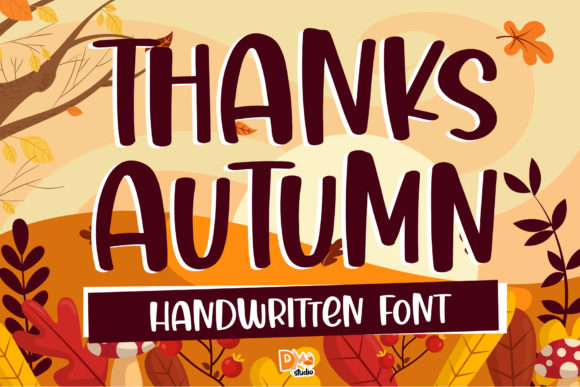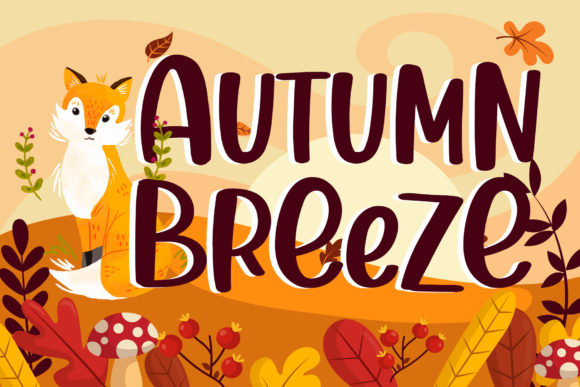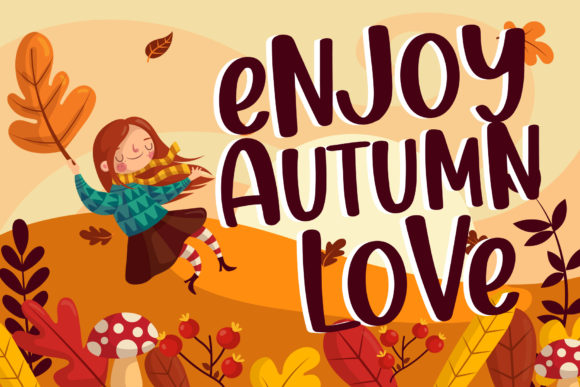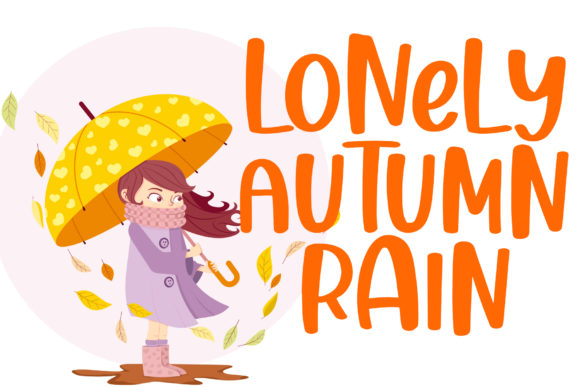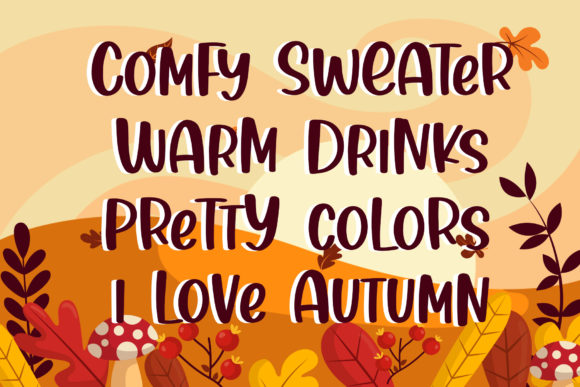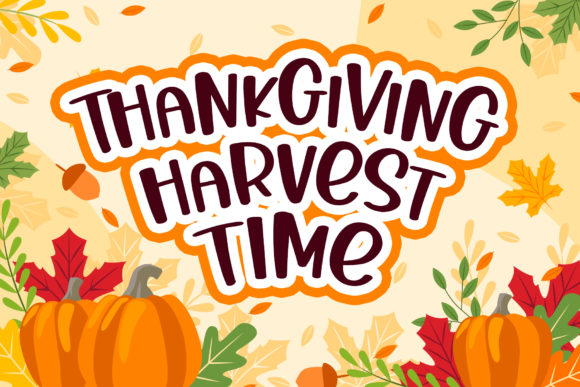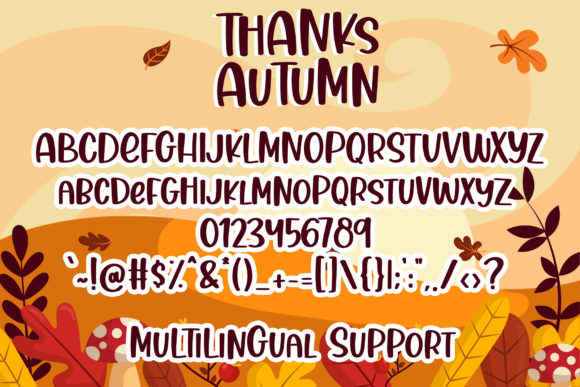
Thanks Autumn Font
About Thanks Autumn Font
Thanks Autumn embodies fun, quirkiness and authenticity. This enchanting handwritten font will turn any creative idea into a true standout. Get creative with its unique playfulness, and use it to brighten up any crafting project!